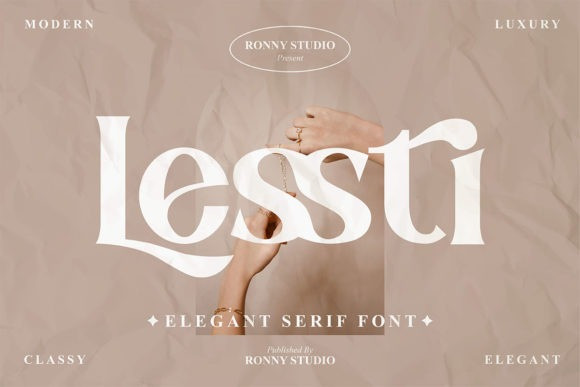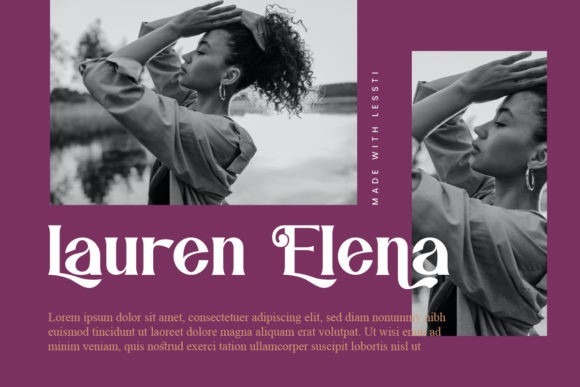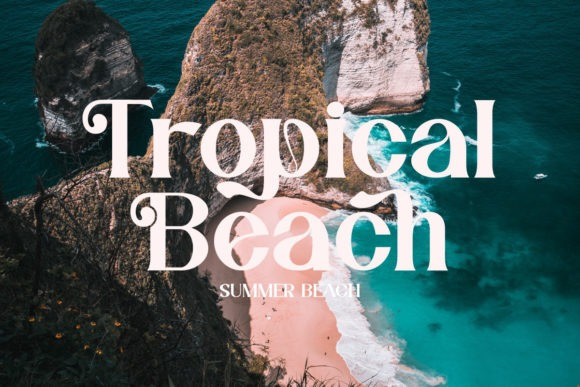
Lessti Font
Lessti is an elegant and chic serif font. It is PUA encoded which means you can access all of the glyphs and swashes with ease!
Add it confidently to your favorite creations and let yourself be amazed by the outcome generated.